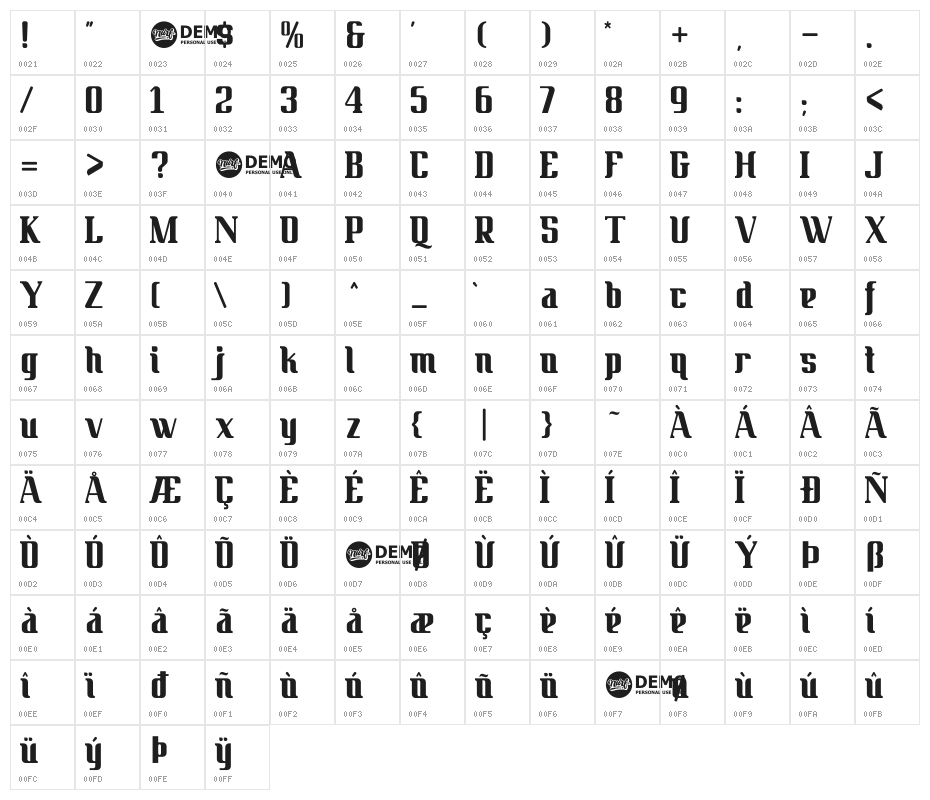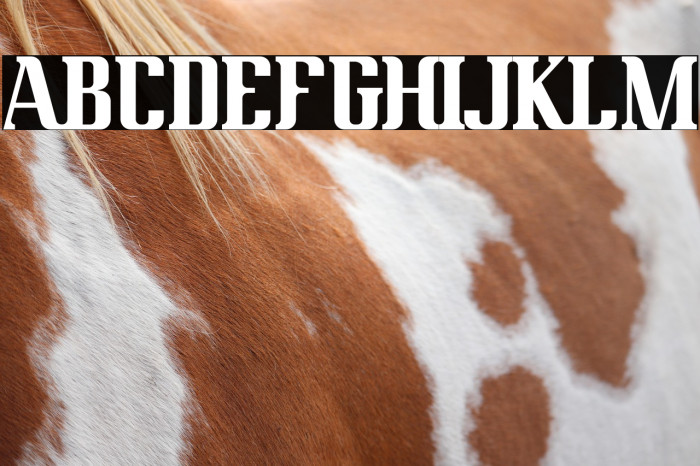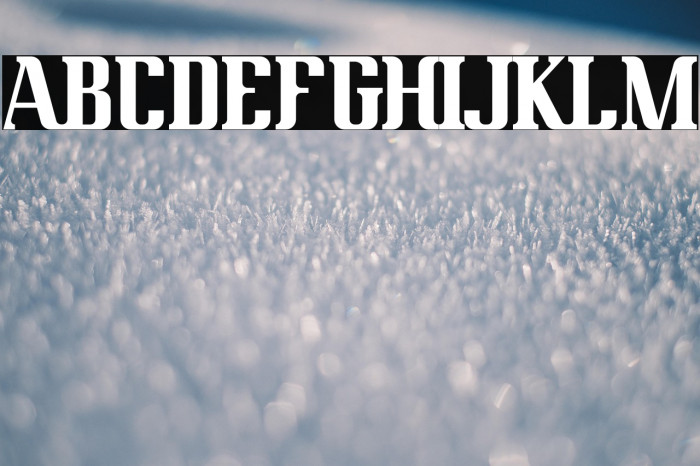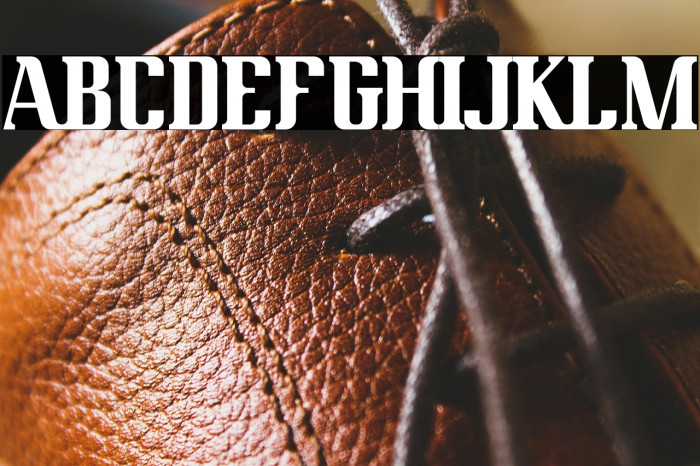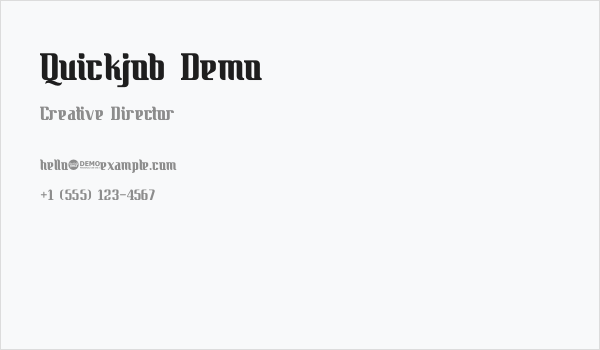
Quickjob Demo Font
Quickjob Demo Description
This font features a bold and striking design with a modern twist. The uppercase letters are characterized by sharp angles and a strong presence, while the lowercase letters maintain a consistent style with slightly softer curves. The numerals are equally bold, ensuring they stand out in any context. Special characters are designed to match the overall aesthetic, providing a cohesive look across all elements. The font's unique style makes it suitable for attention-grabbing headlines and impactful designs.
| Proposed Projects | Ideal for branding, posters, headlines, and any project requiring a strong visual impact. |